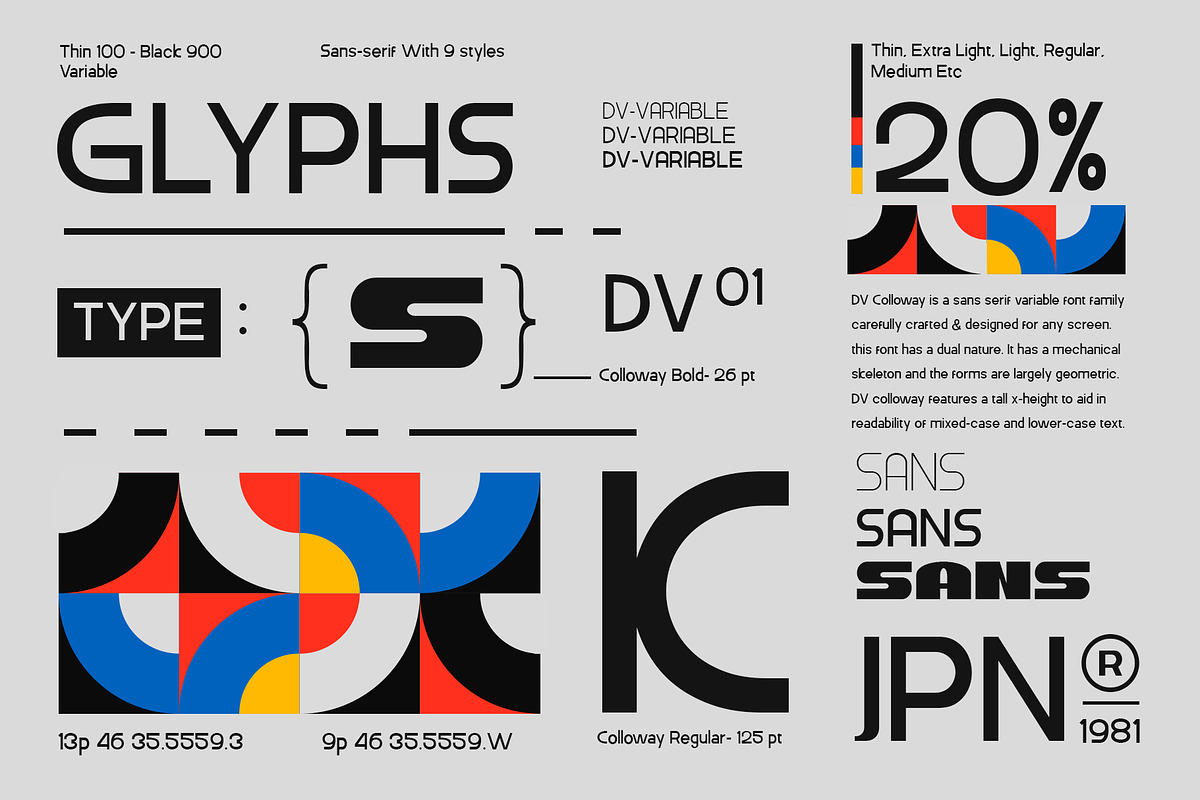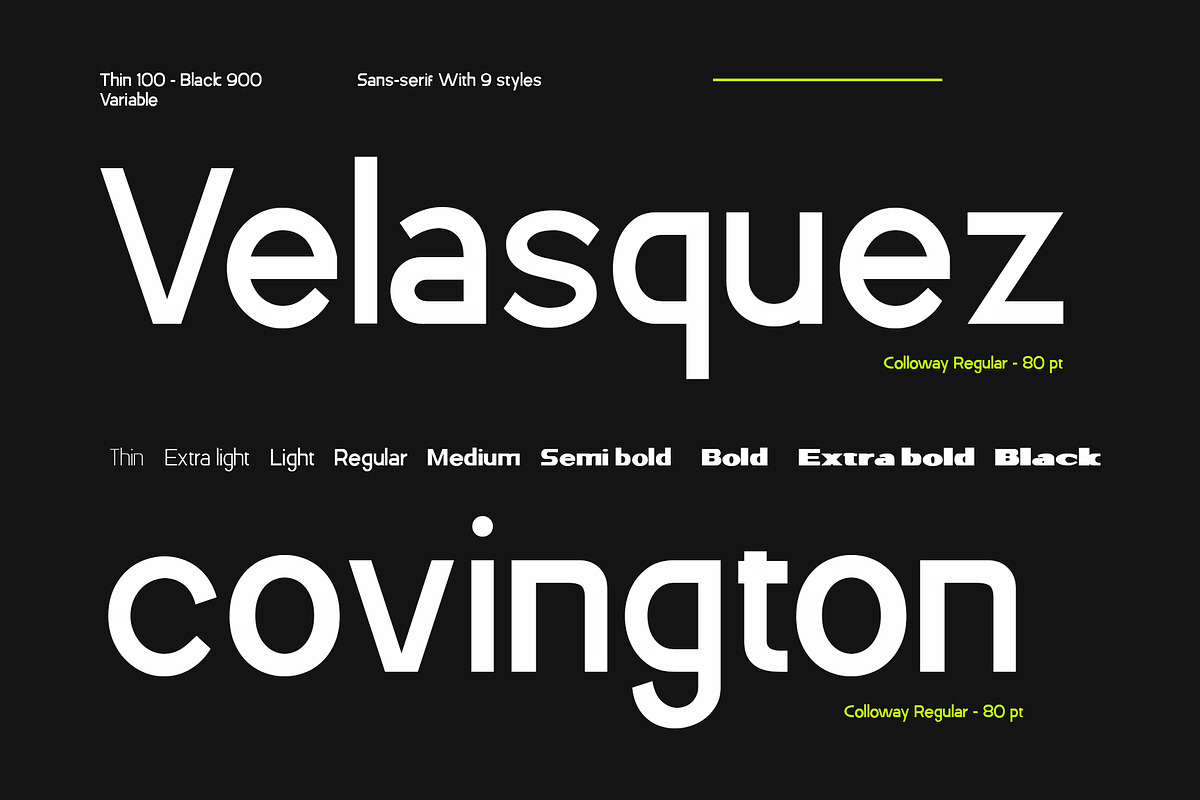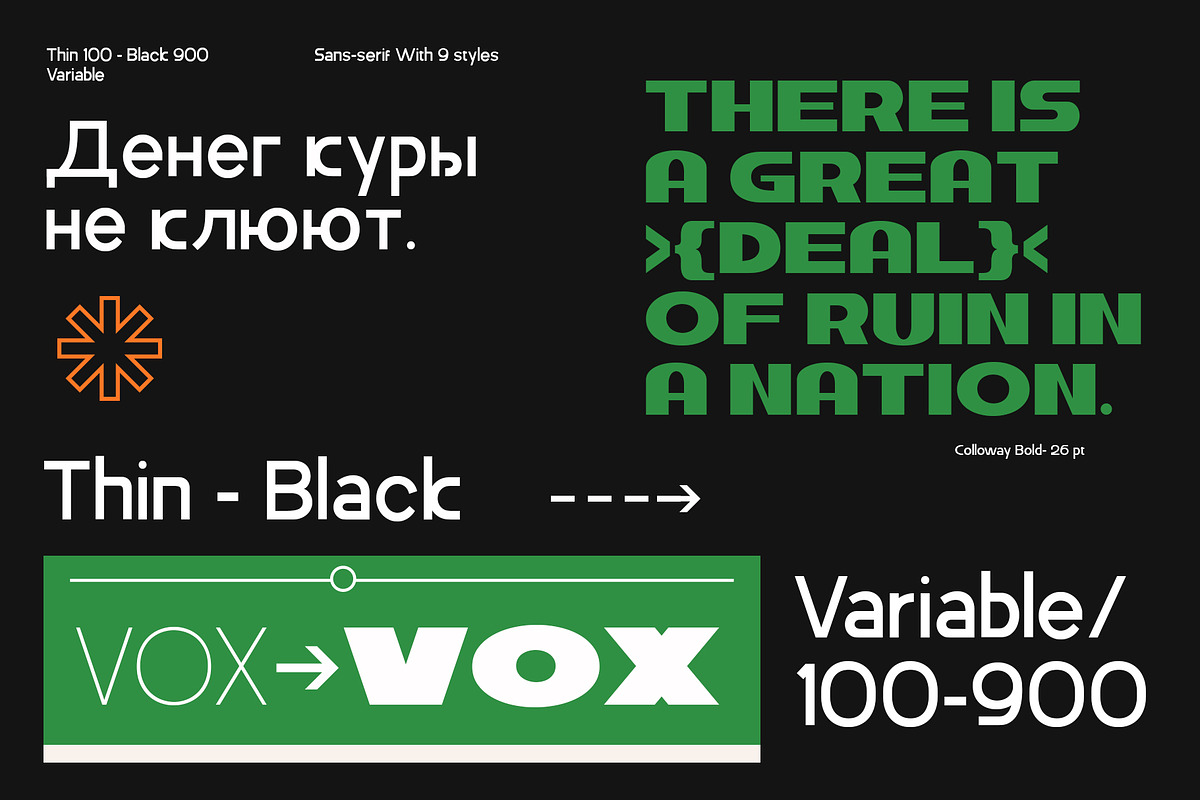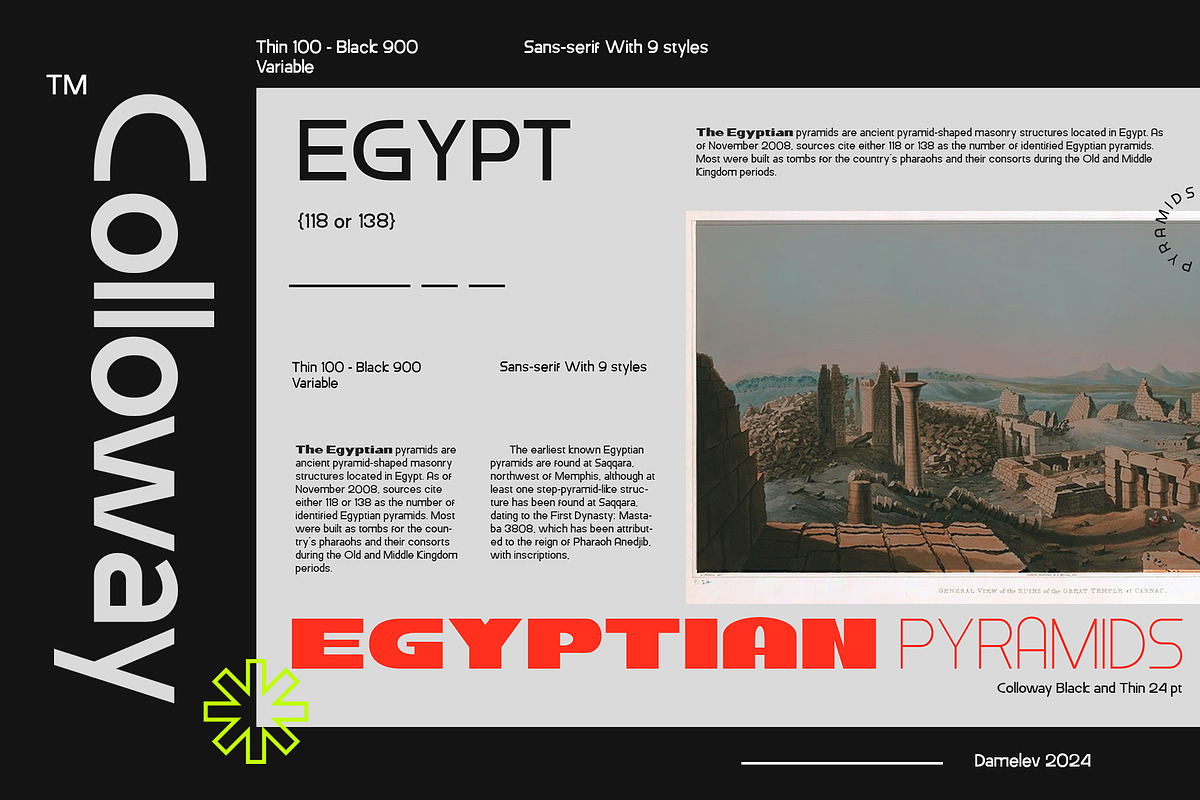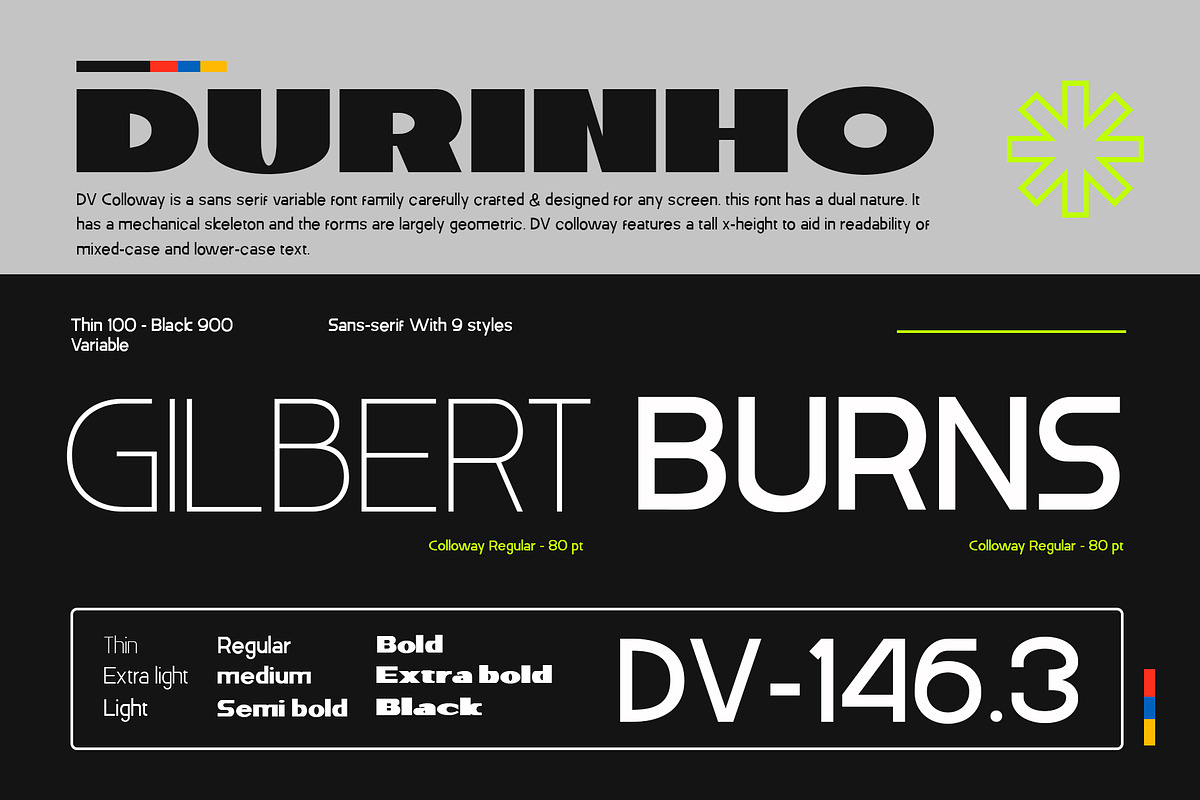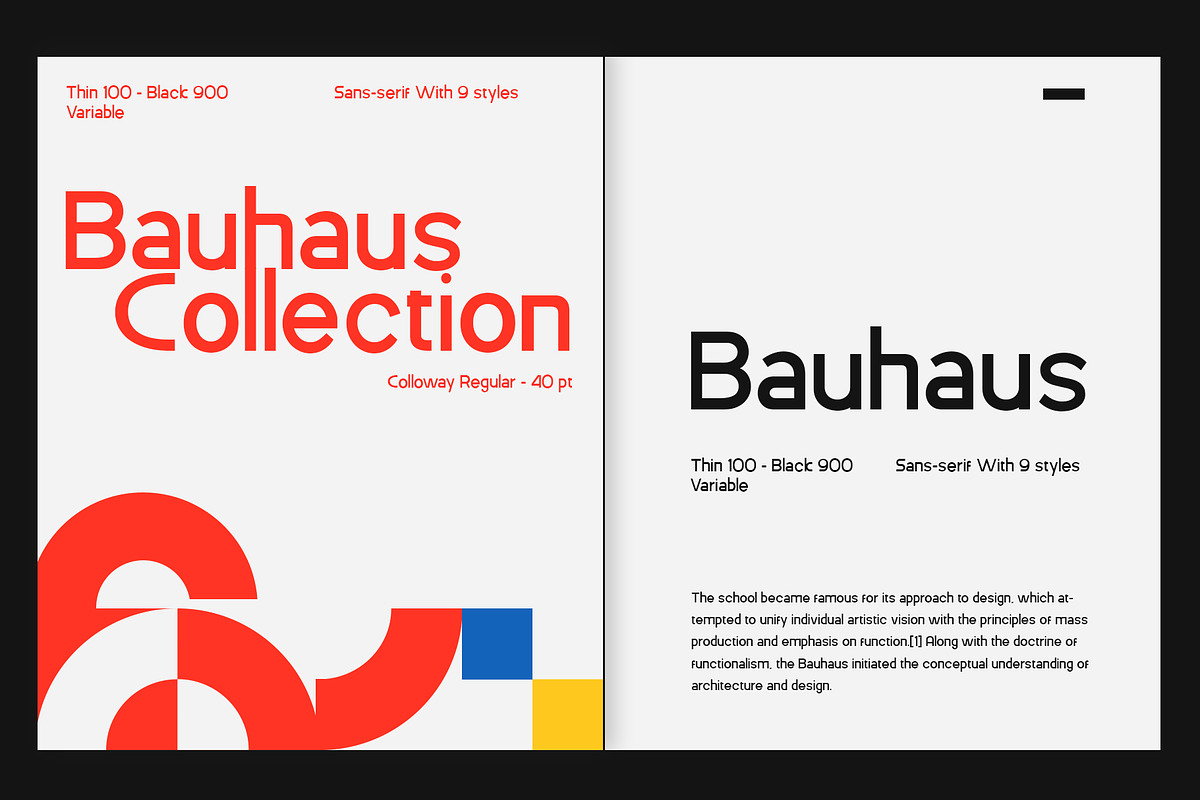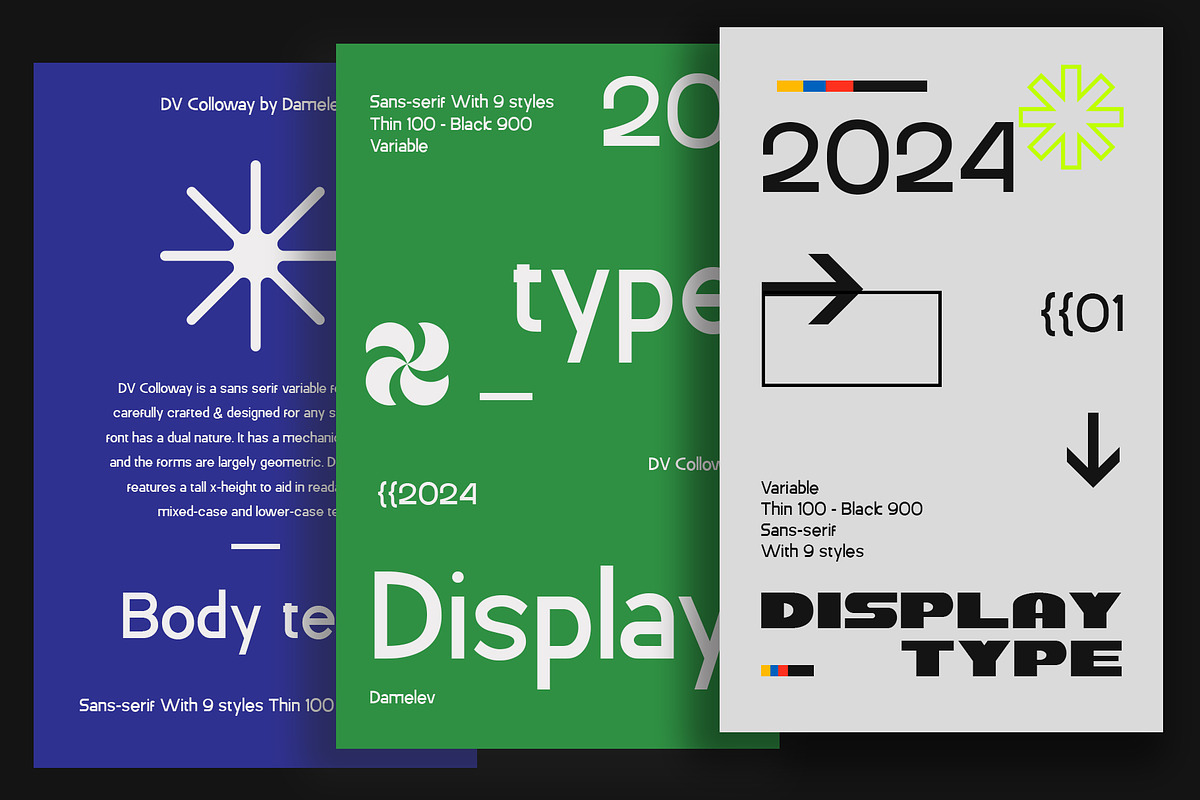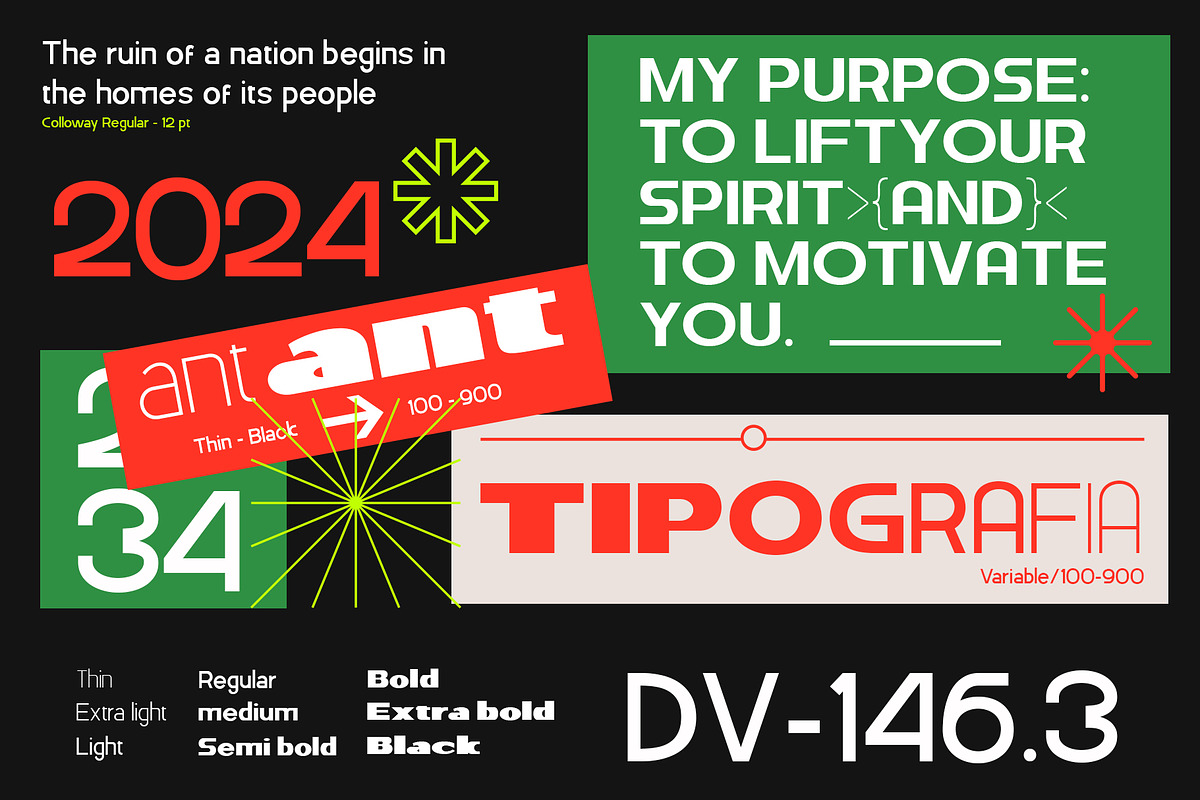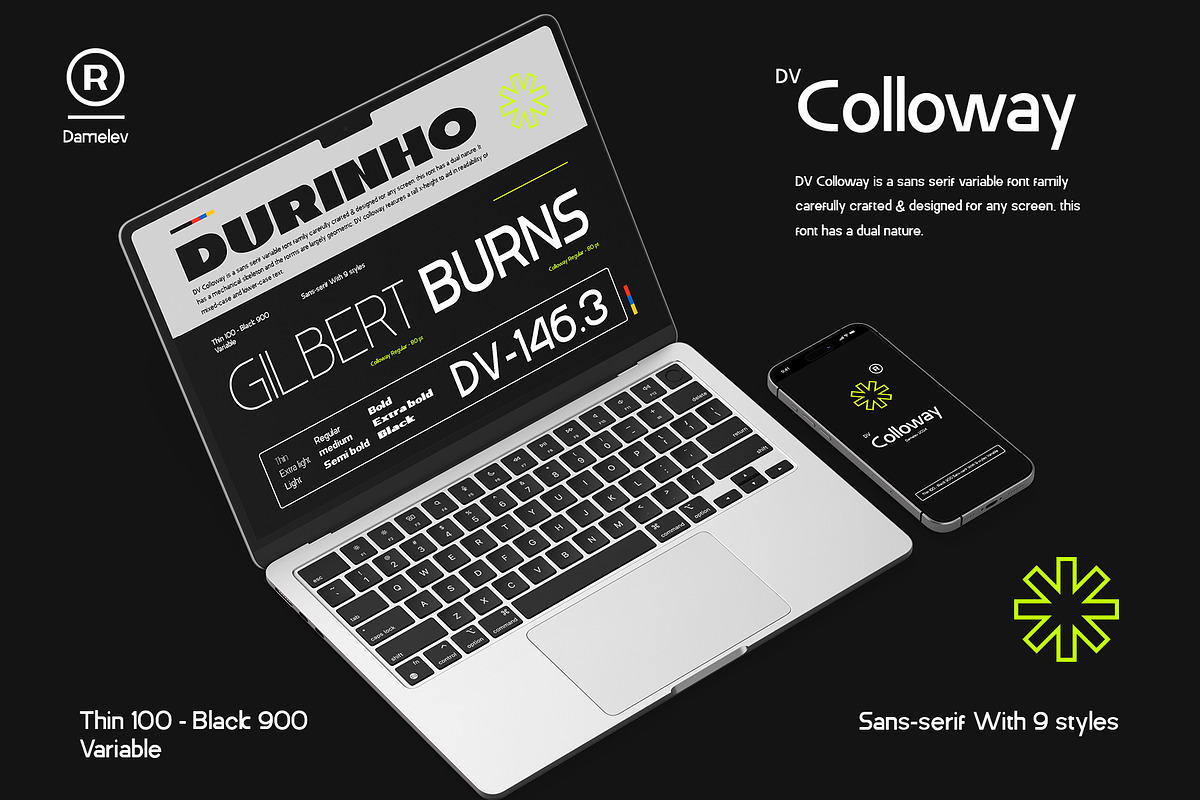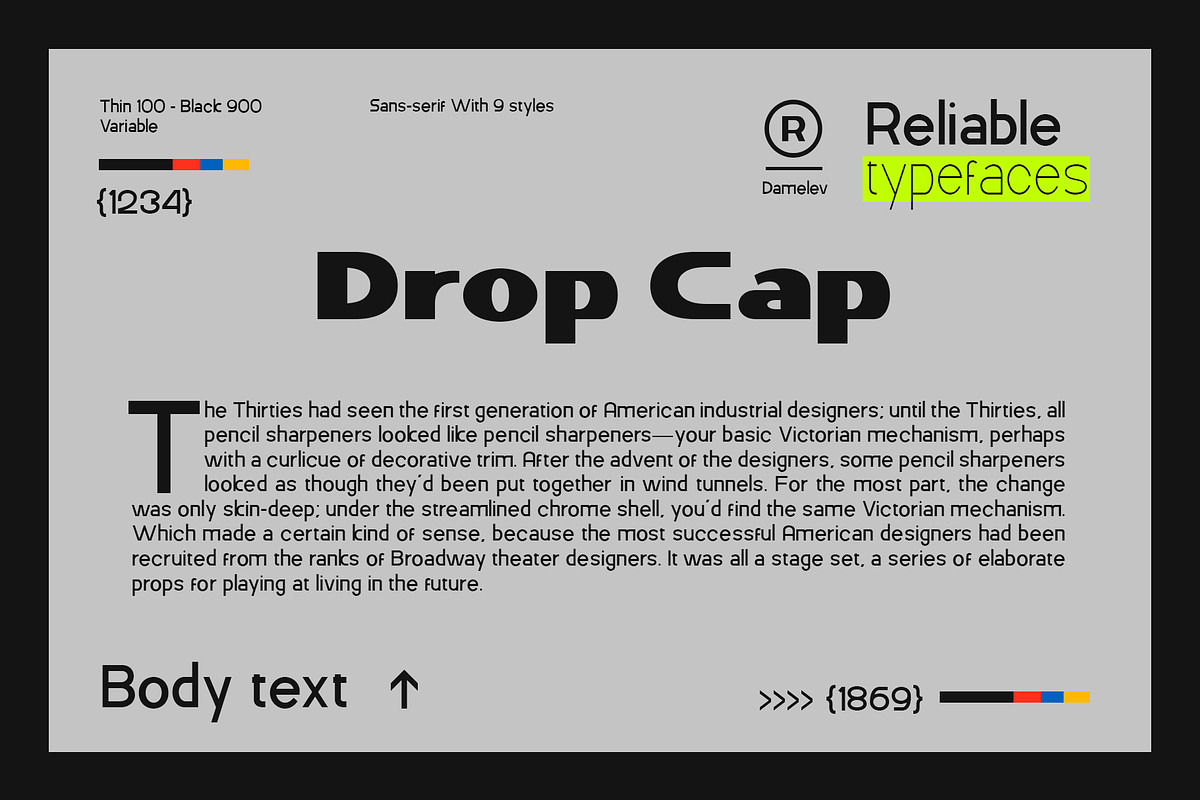
DV Colloway
DV Colloway is a sans serif variable font family carefully crafted & designed for any screen. this font has a dual nature. It has a mechanical skeleton and the forms are largely geometric. DV colloway features a tall x-height to aid in readability of mixed-case and lower-case text.
The pack also includes eighteen different which are Thin, Extra Light, Light, Regular, Medium, Semi Bold, Bold, Extra bold, Black, and support multilingual.